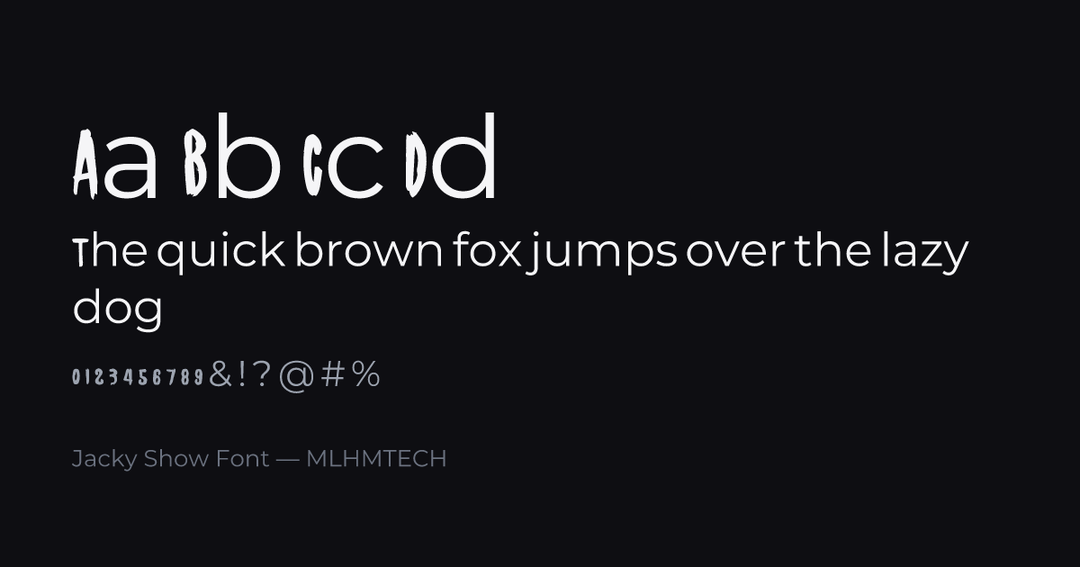
Jacky Show Font
Jacky Show is a bold, expressive display font ideal for eye-catching titles, logos, and creative designs. Its unique character adds personality to any project.
Jacky Show is a distinctive display font that brings a bold, handcrafted feel to your projects. Its thick strokes and playful curves make it perfect for headlines, posters, and branding that need to stand out.